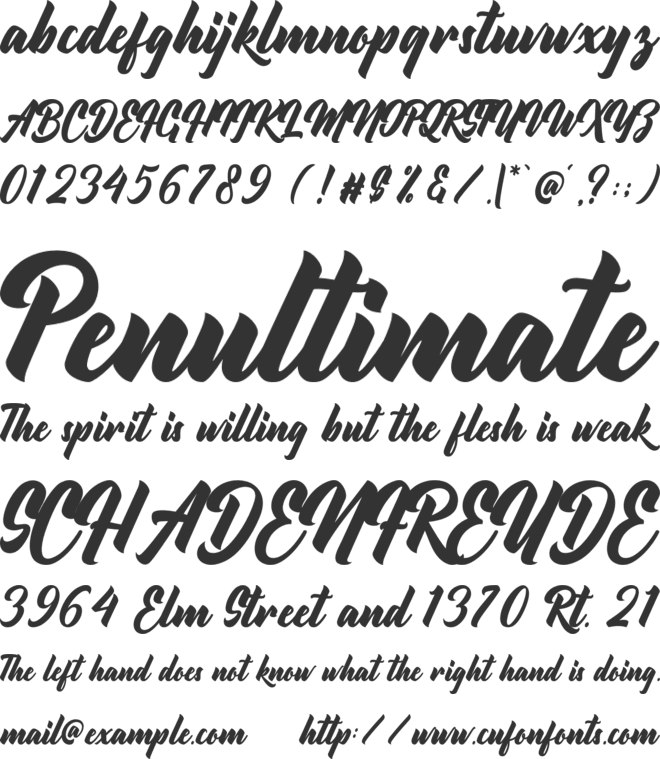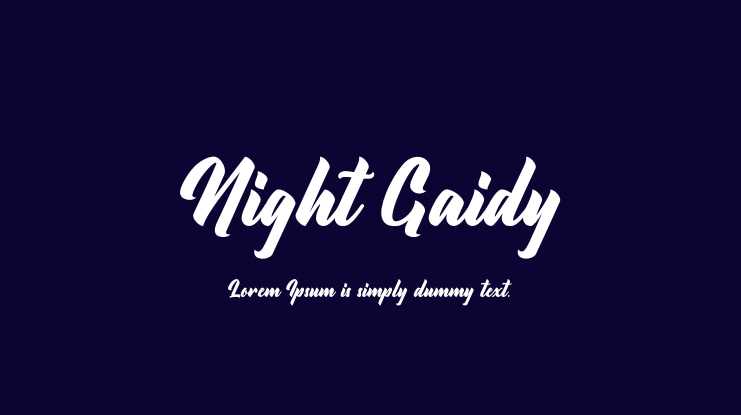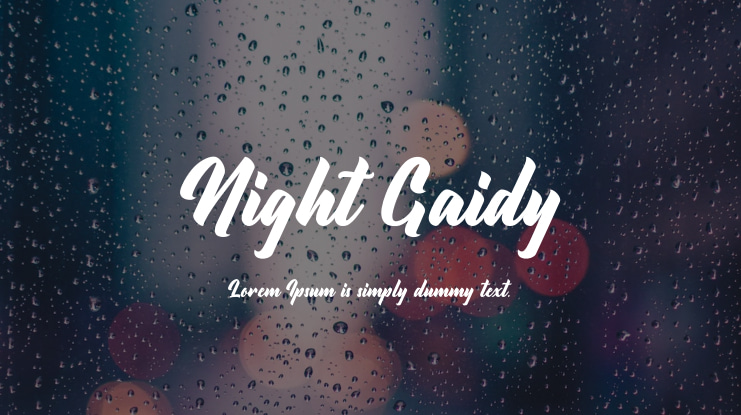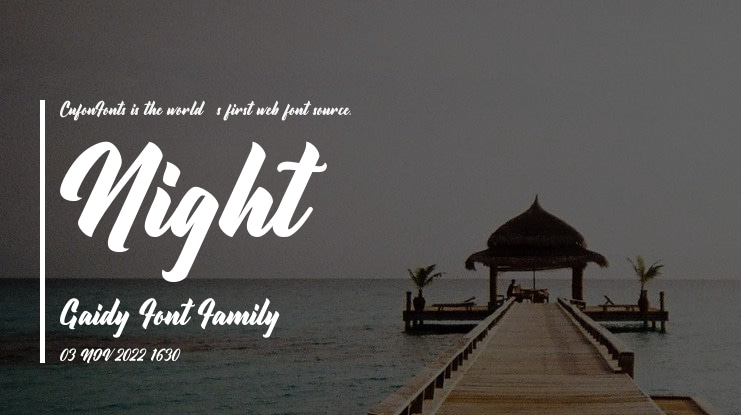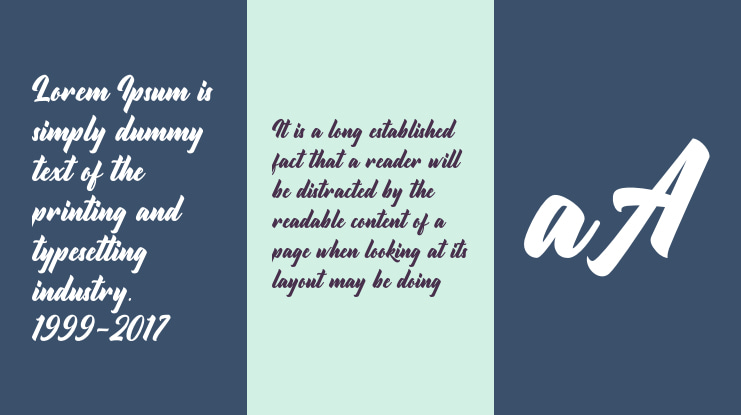
Night Gaidy Font
Night Gaidy is a strong and bold script font. It is curved, rounded, and has an unique vintage style, that is perfect for branding.Its perfect for branding projects logo, and the other various formal forms such as invitations, labels, logos, magazines, books, greeting / wedding cards, packaging, fashion, make up, stationery, novels, labels or any type of advertising purpose.This demo font is for PERSONAL USE ONLY! But any donation are very appreciated.Paypal account for donation :https://www.paypal.com/paypalme/payrgbstudioLink to purchase full version and commercial license : https://crmrkt.com/Gjb1PoFor Extended License or Corporate License Please Reach Us on email :  you need something! Happy Designing! Thank you.Regards,RGB Studio